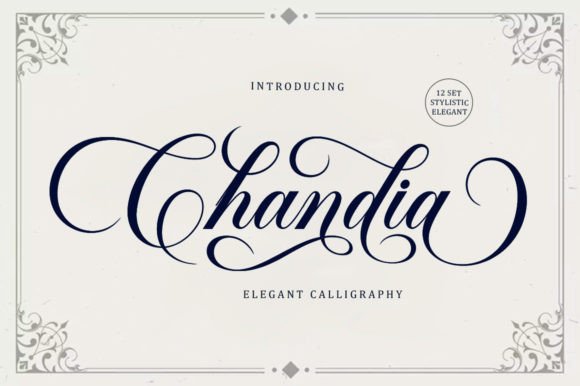
Introducing Chandia Font, a mesmerizing script font that is sure to captivate your creative senses! Crafted with utmost precision by Mastertype, this font is a true work of art. With its intricate detailing and flawless design, Chandia Font is the perfect addition to your font collection.
Whether you're a professional designer or a passionate hobbyist, Chandia Font offers endless possibilities. Its versatility makes it suitable for a wide range of projects, from eye-catching logos and striking headlines to elegant invitations and breathtaking artwork. No matter the subject or theme, this font has the power to elevate your creations to a whole new level.
Imagine the impact of Chandia Font on your next project. Its exquisite curves and graceful strokes will effortlessly draw attention and leave a lasting impression. With this font by your side, your designs will exude sophistication and charm, setting you apart from the competition.
But Chandia Font is not just visually stunning; it also boasts exceptional functionality. Its compatibility with Cricut machines makes it a must-have for craft enthusiasts. With this font, you can effortlessly create stunning vinyl decals, personalized gifts, and unique home decor items. Let your imagination run wild as you explore the endless possibilities that Chandia Font offers.
Embrace the power of words and emotions with Chandia Font. Its elegant script style evokes a sense of romance, passion, and beauty. Whether you're designing wedding stationery or crafting heartfelt quotes, this font will bring your words to life, leaving a lasting impact on your audience.